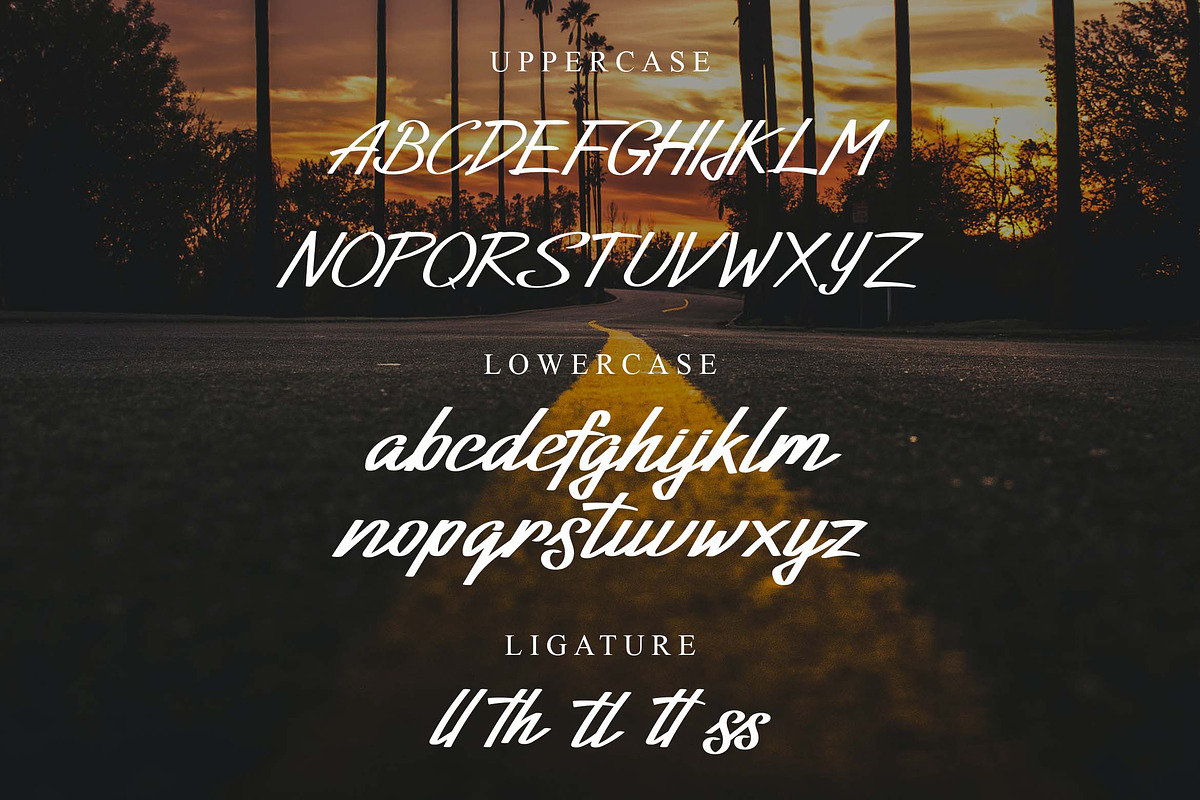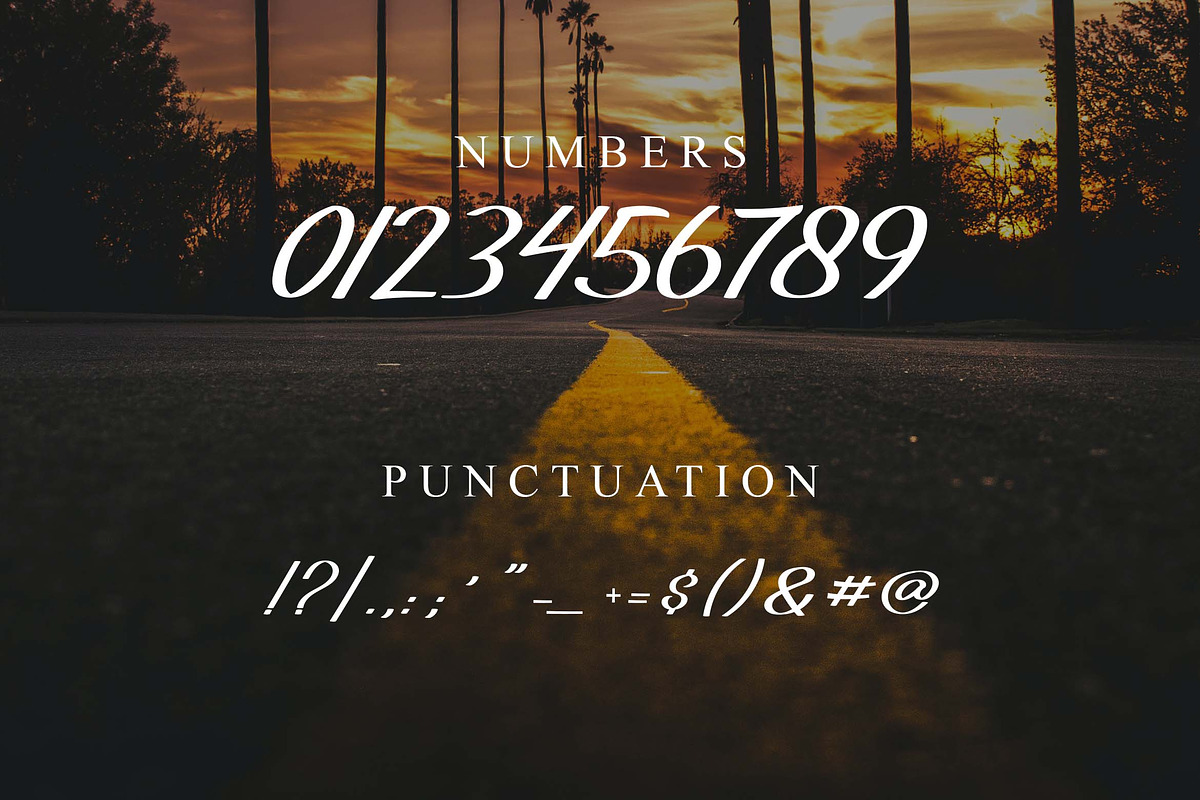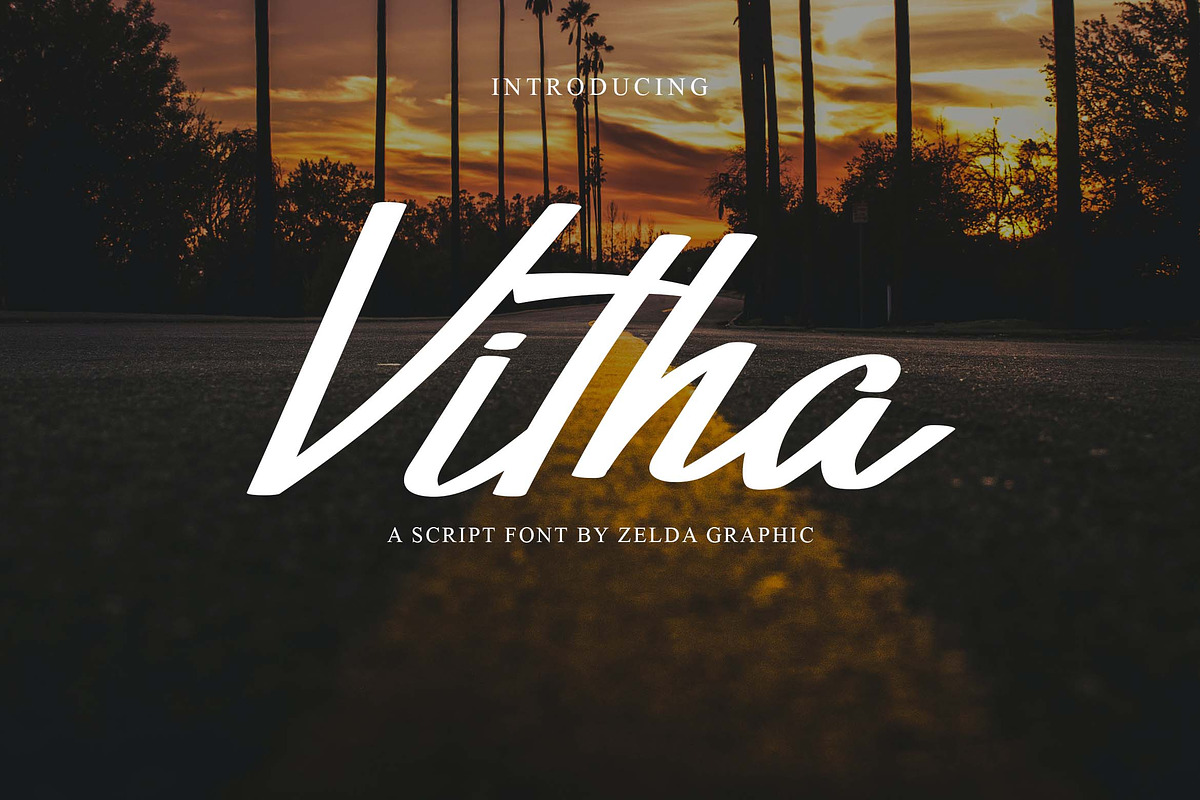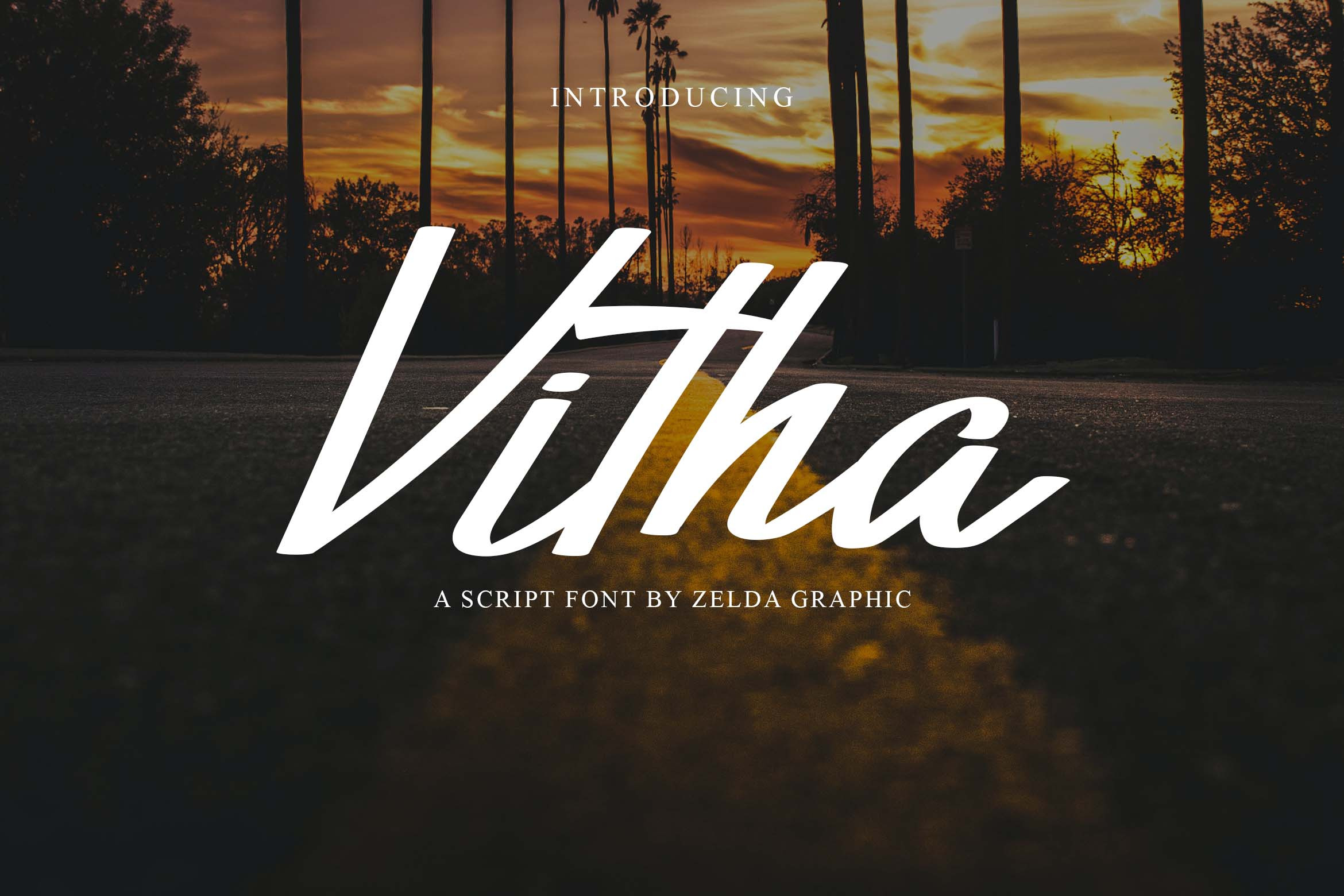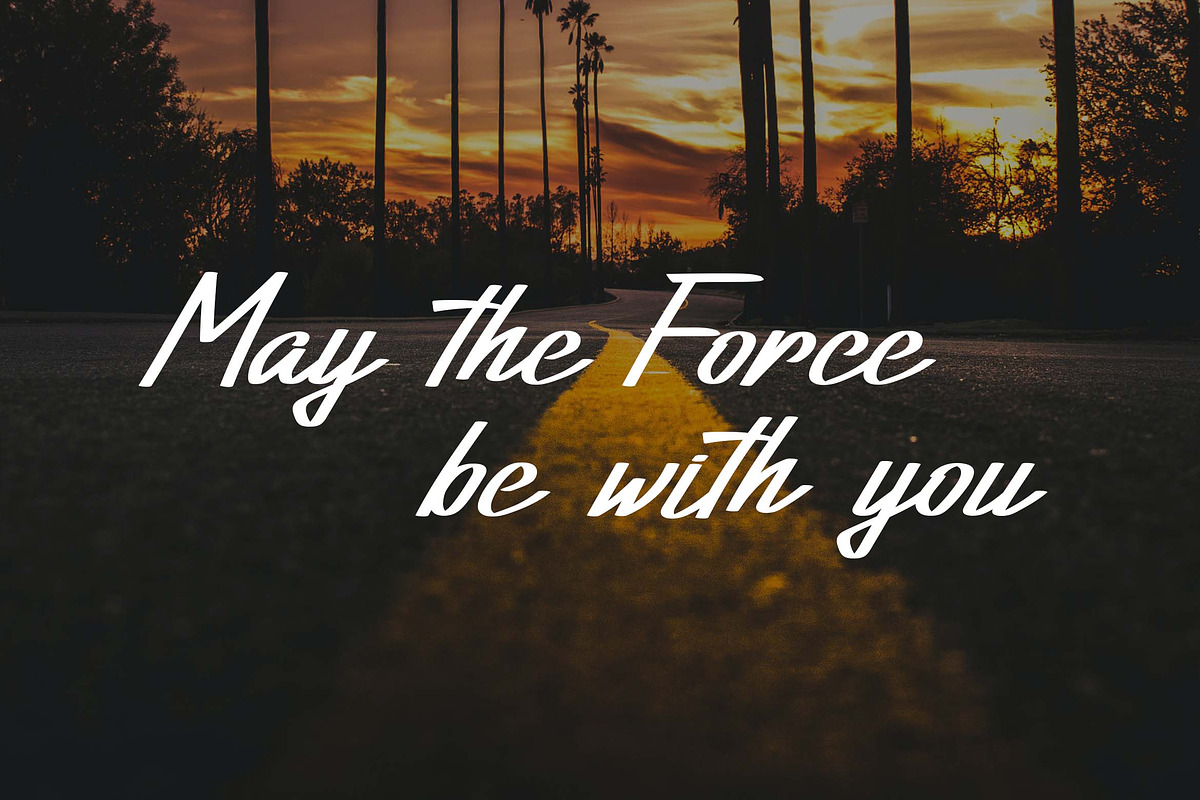
Vitha Script Font
Vitha is modern and awesome script font with a natural style. This font is suitable for your current or classic design: Signature. Logo. Branding. Invitation. Blog Headline and many more.
- Numbers and Punctuation